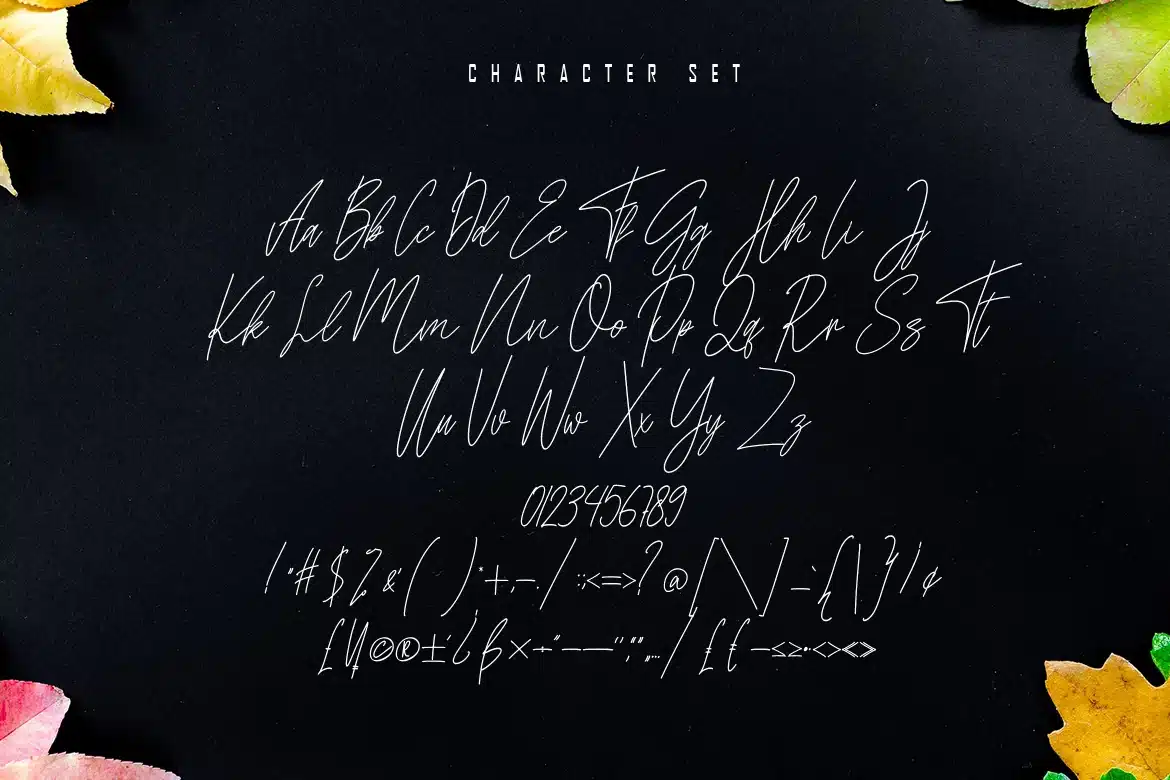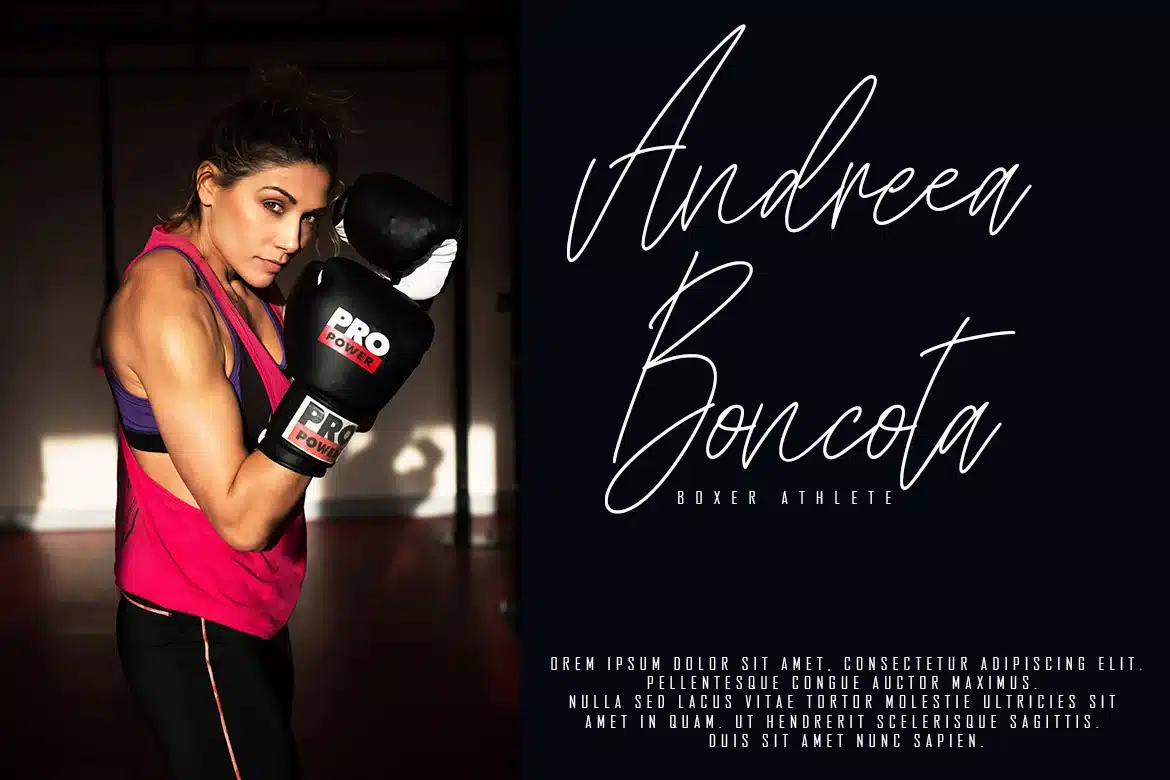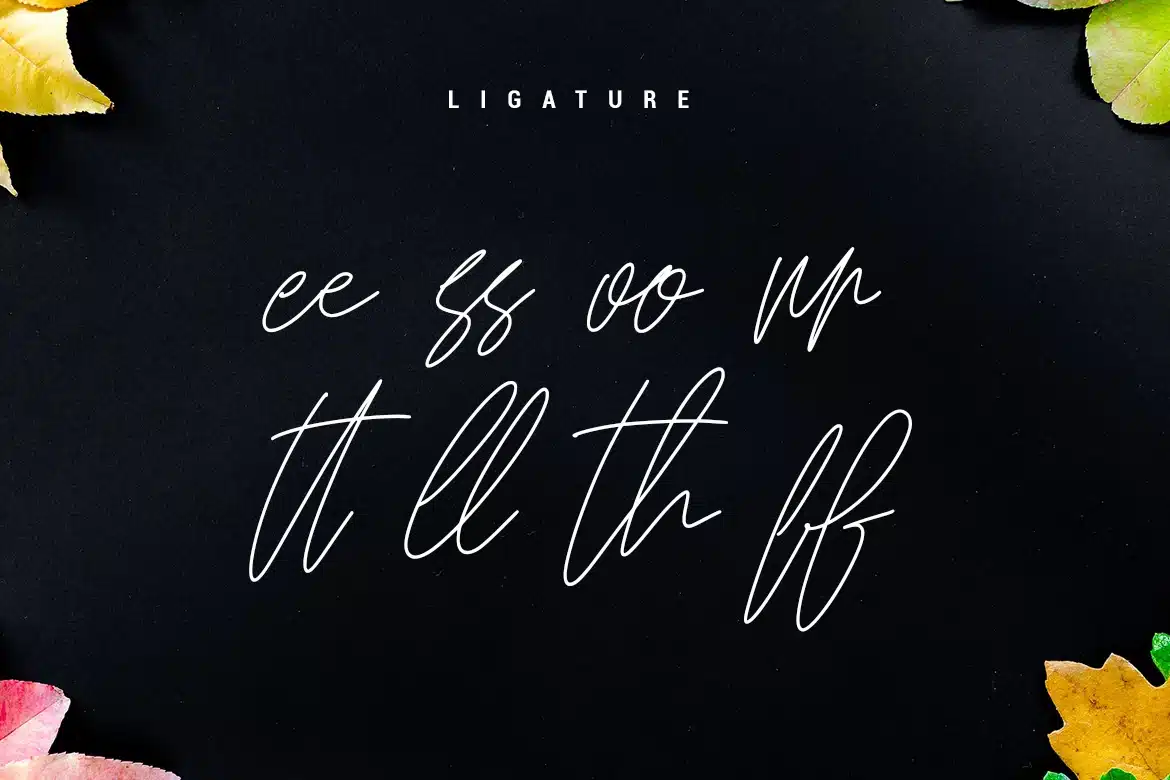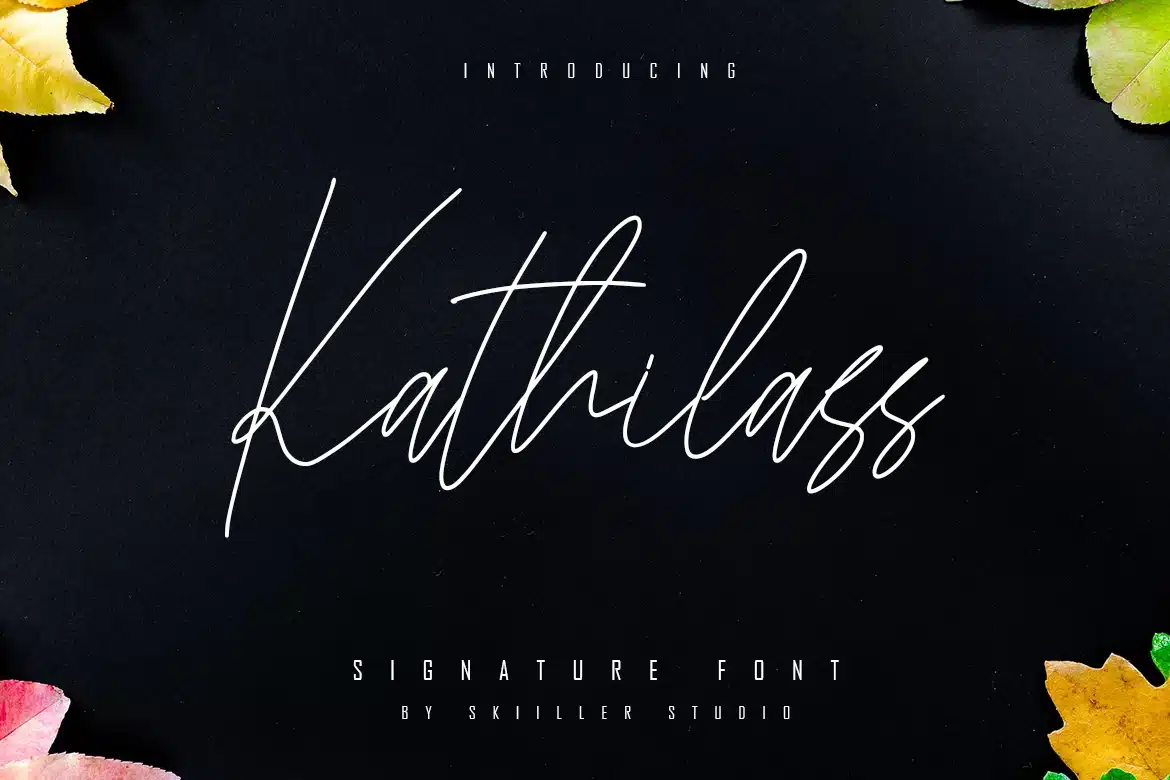
Kathilass – Signature Font
Kathilass is a handwritten signature script with a natural flow and beautiful style. Kathilass is perfect for design projects, prewedding, branding.